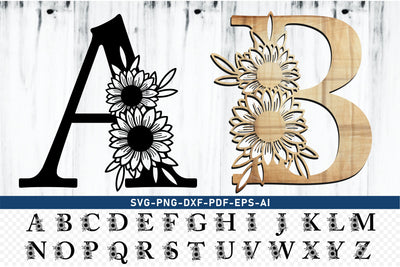
Sunflower Monogram Alphabet Letters Set A-Z SVG Designs Bundle, Floral Font SVG Laser Cut Files, Flower Monogram Letter SVG, PNG, For Cricut
Sunflower Monogram Alphabet Monogram Letters Set A-Z SVG Designs Bundle, Floral Font SVG Laser Cut Files, Flower Monogram Letter SVG, PNG, For Cricut